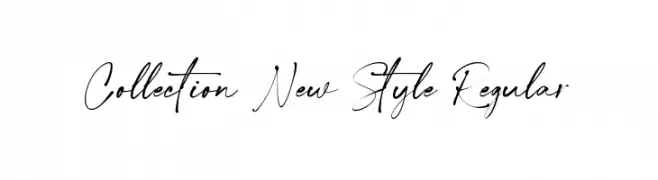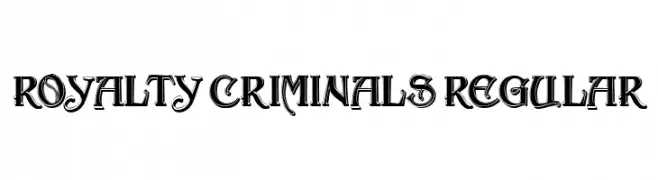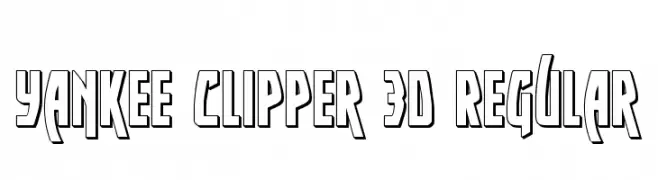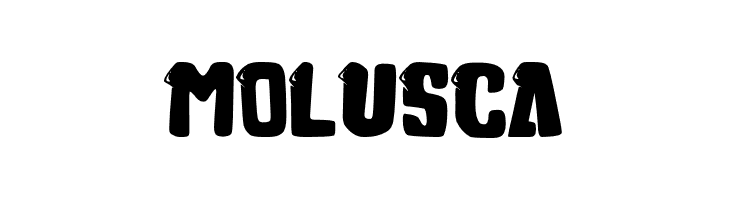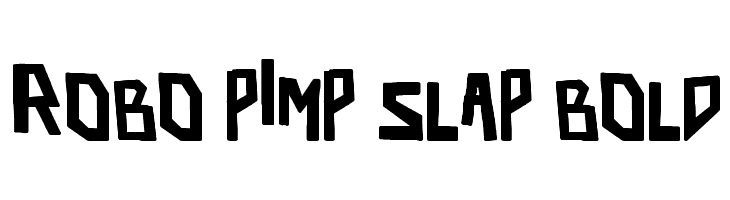
A playful, elegant script font with a handwritten touch.
A modern, elegant script font with flowing, cursive characters.
A whimsical, decorative font with playful curves and swirls.
A classic, oblique serif font with a Renaissance-inspired elegance.
A bold, decorative font with medieval-inspired details and high contrast strokes.
A bold, playful font with an organic, handcrafted look.
A bold, 3D font with a dynamic and impactful style.
A bold, italicized font with a futuristic and angular design.
A bold, geometric font with sharp angles and a futuristic style.